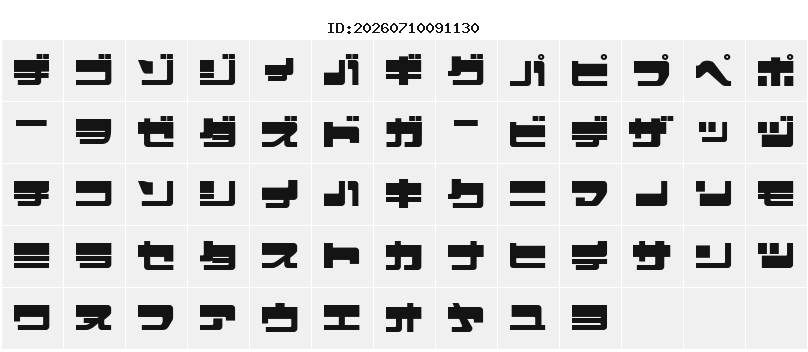
EjectJap Preview
• Font Name: EjectJap
• Font Style: UpperPhat
• Font ID: Macromedia Fontographer 4.1.2 EjectJap UpperPhat
• Full Font Name: EjectJap UpperPhat
• Version: Macromedia Fontographer 4.1.2 13.10.1998
• PostScript Name: EjectJapUpperPhat
• Character Count: 91
About EjectJap.ttf
EjectJap.ttf is a modern, elegant sans-serif font designed for ultimate readability and visual harmony. Perfect for branding, headlines, web design, and print materials.